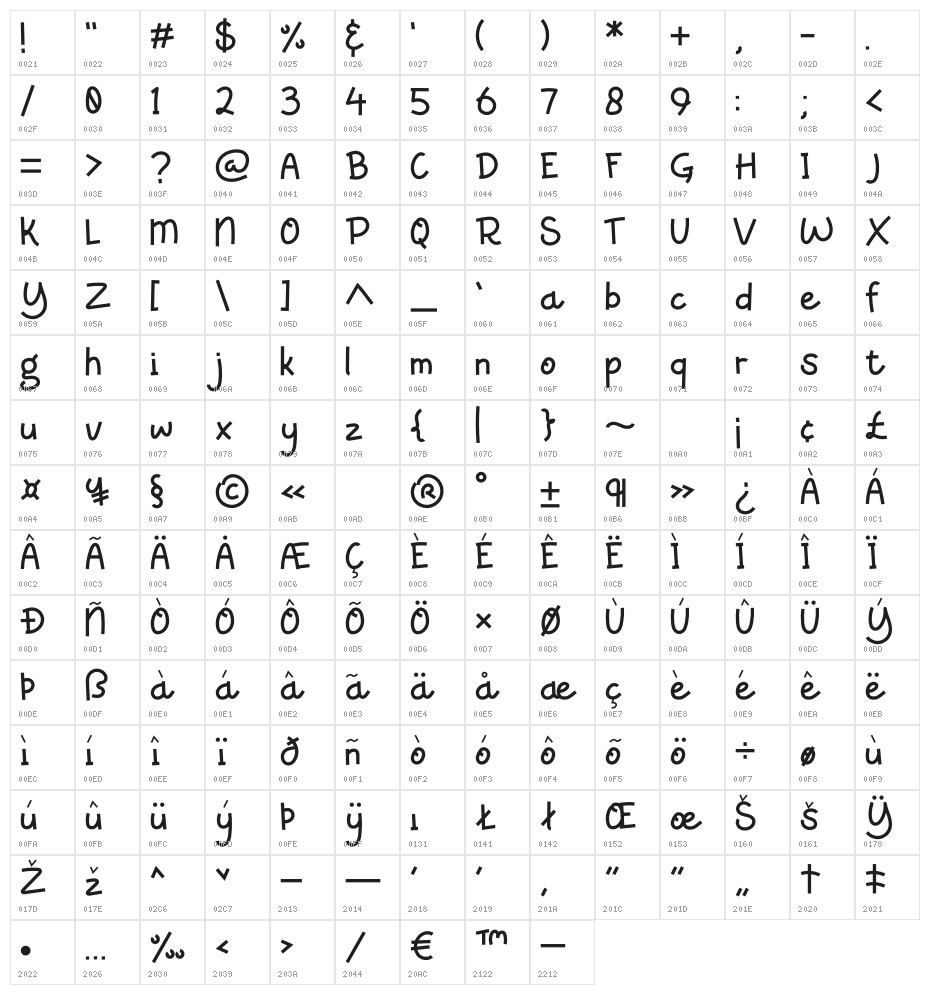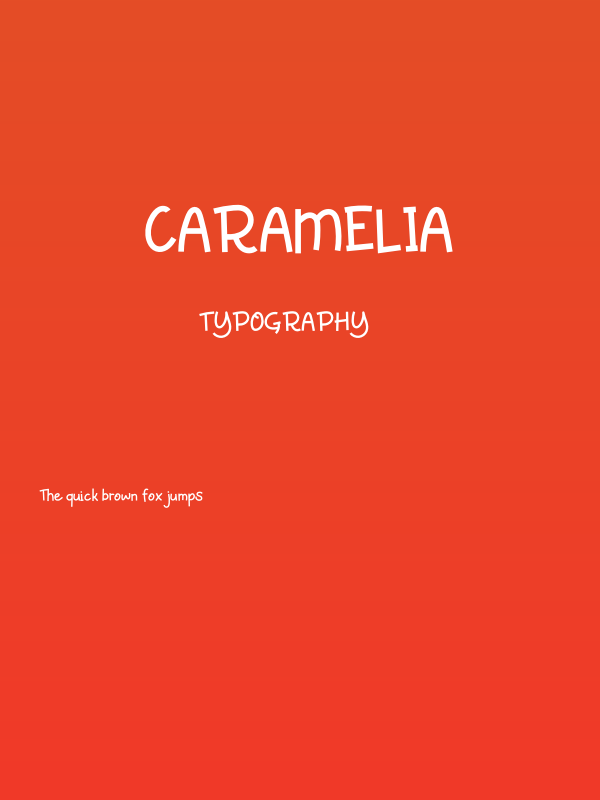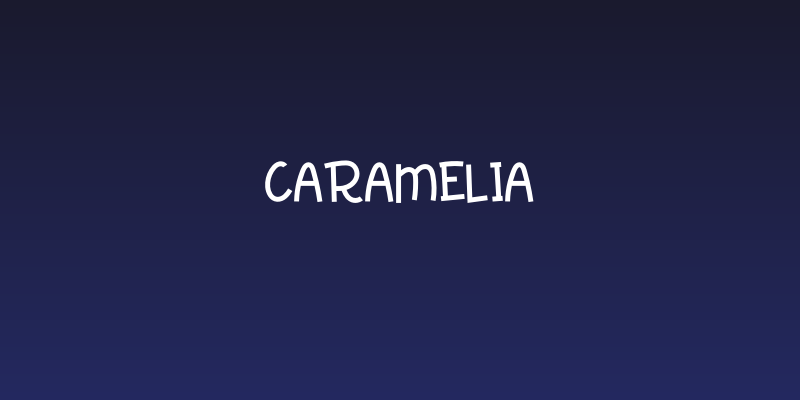
Caramelia Font
| 全体的なスタイル | Playful, Casual |
| 用途 | Headlines, Logos, Creative projects |
| おすすめプロジェクト | Ideal for children's books, greeting cards, playful branding, and creative projects. |